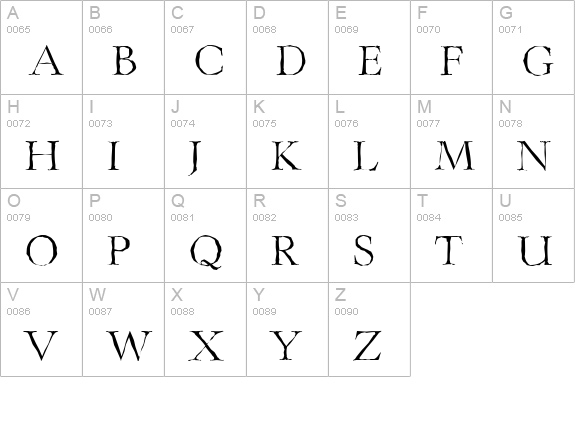
LingwoodAntique-Light-Regular Font Details
LingwoodAntique-Light-Regular is a refined, elegant variant in the LingwoodAntique typeface family \xE2\x80\x94 well suited to elegant body text, refined sub-headings, and luxury branding.
LingwoodAntique-Light-Regular font is a timeless and elegant typeface that evokes a sense of nostalgia and sophistication. Its delicate serifs and classic letterforms make it perfect for projects that require a touch of vintage charm. This versatile font is ideal for a variety of design applications, from branding and packaging to editorial design and signage. What sets LingwoodAntique-Light-Regular font apart is its timeless appeal and versatility. Whether you're designing a wedding invitation, a book cover, or a logo, this font is sure to make a lasting impression. Its graceful lines and refined details give any project a touch of elegance and refinement. The best part? LingwoodAntique-Light-Regular font is available for free download at FontsMarket.com. Simply visit the website and add this beautiful typeface to your collection with just a few clicks. Don't miss out on the opportunity to enhance your designs with this exquisite font that combines the beauty of the past with the functionality of modern typography.